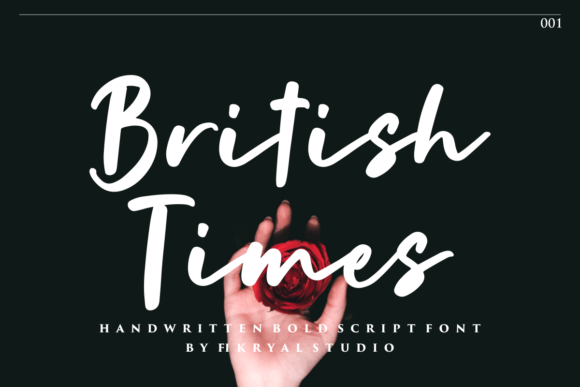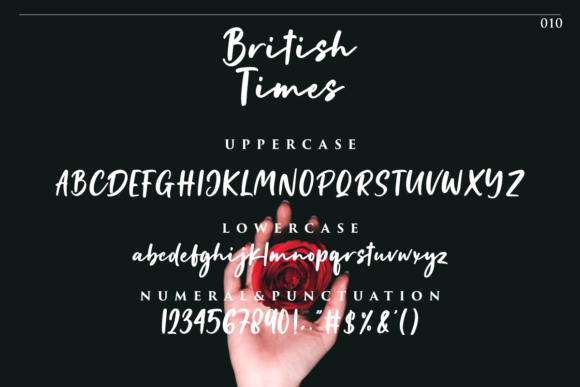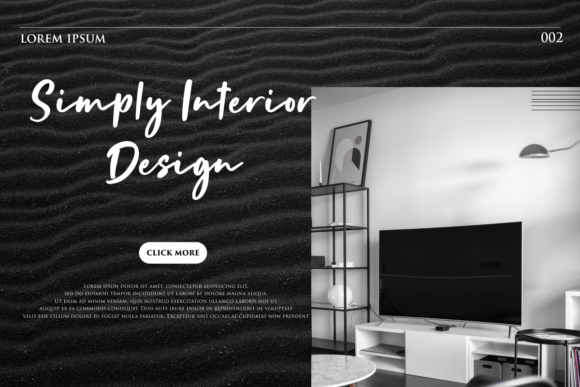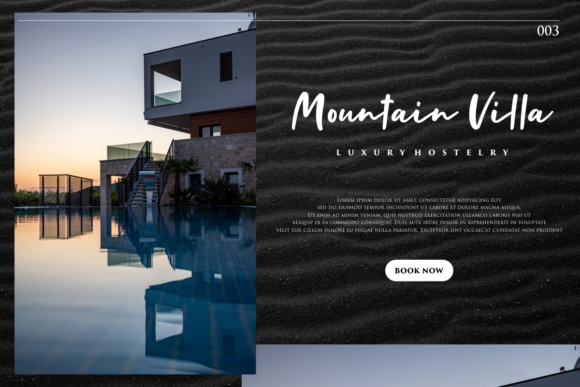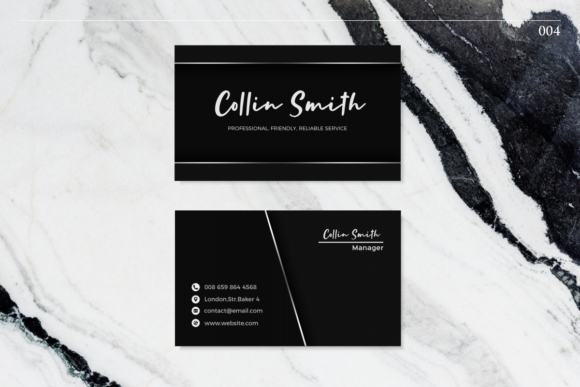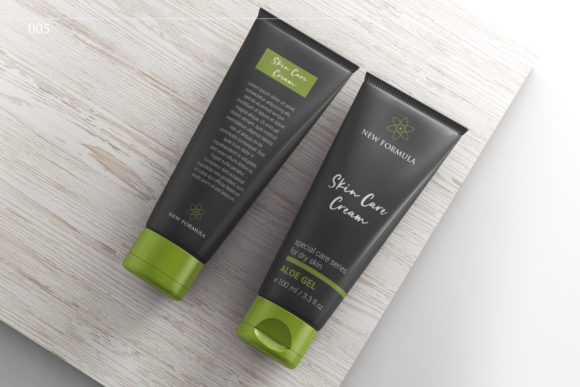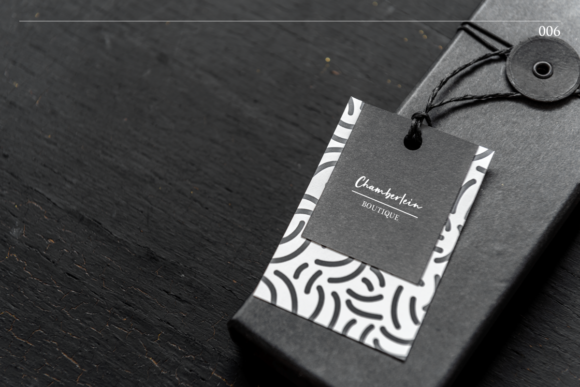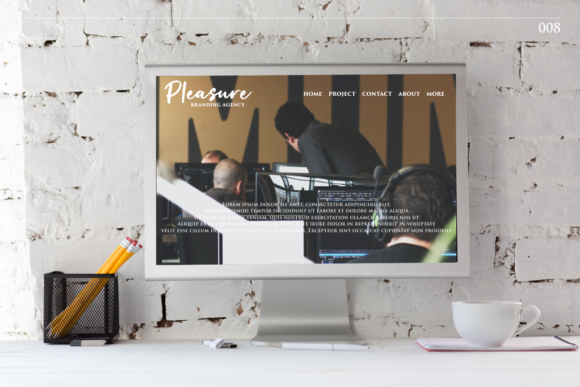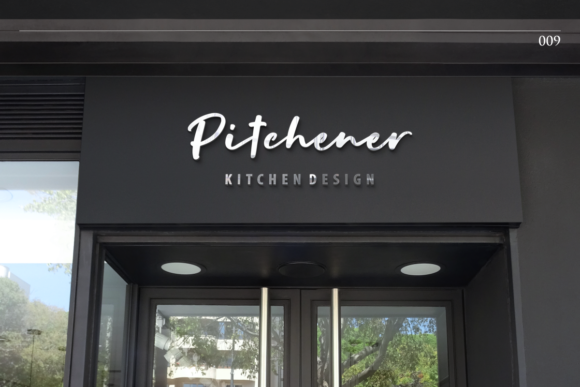
About British Times Font
British Times is a simple, relaxed and flowing handwritten font. Suitable to a wide variety of designs due to its versatility, this font has the potential to become your favorite go-to font, no matter the occasion!